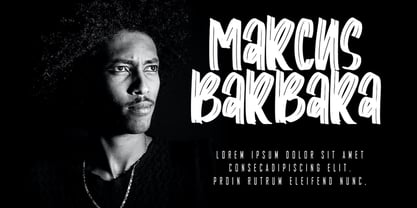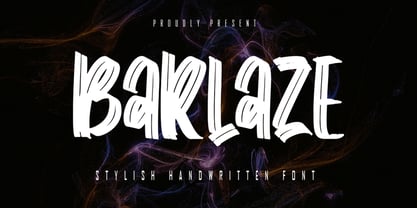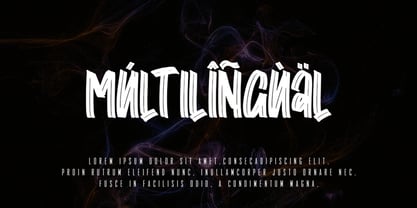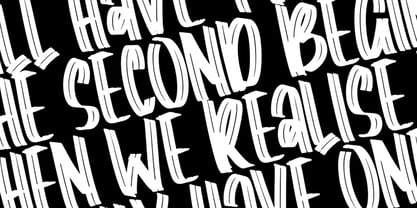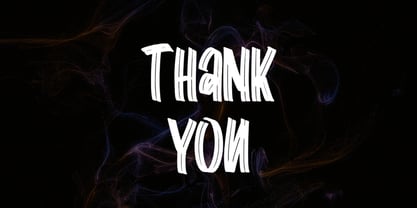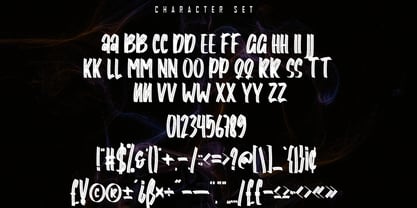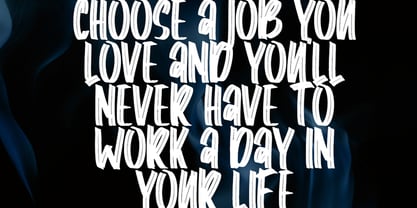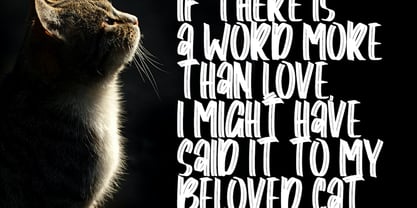
Barlaze
by Skiiller Studio
The Barlaze Font Family was designed by Irfan Mahmudin and published by Skiiller Studio. Barlaze contains 1 styles.
Barlaze is a stylish handwritten font with bold strokes and expressive character shapes. Inspired by modern brush lettering, this font delivers a strong, artistic, and dynamic feel. Perfect for branding, logos, posters, apparel, social media graphics, packaging, and creative headlines. Baklazi brings personality and confidence to your designs, making every word stand out with a natural handwritten touch while remaining highly legible and versatile for both digital and print projects.
Barlaze